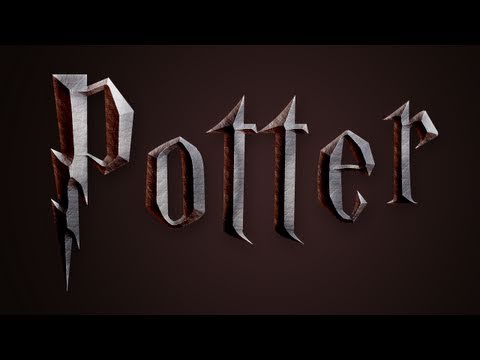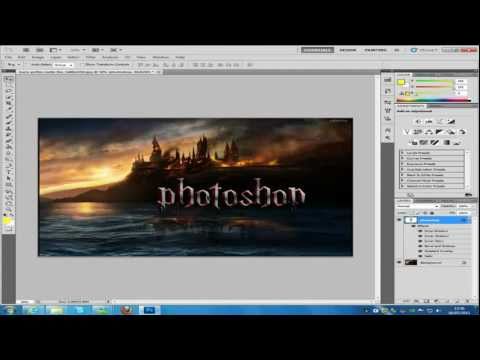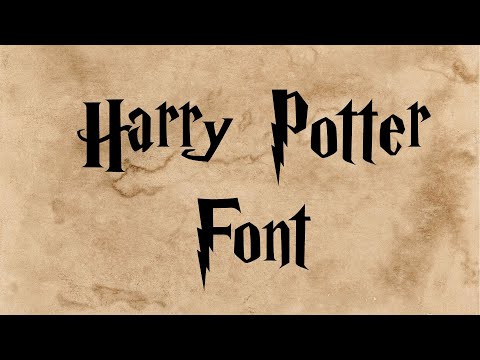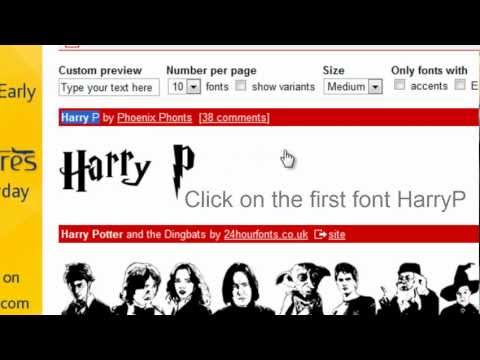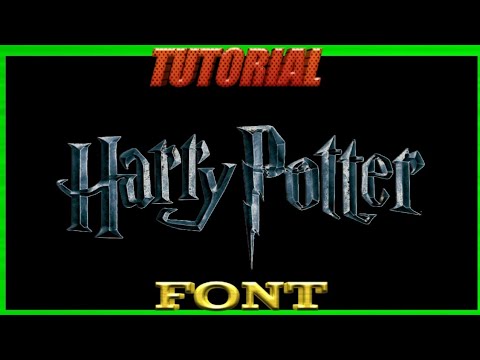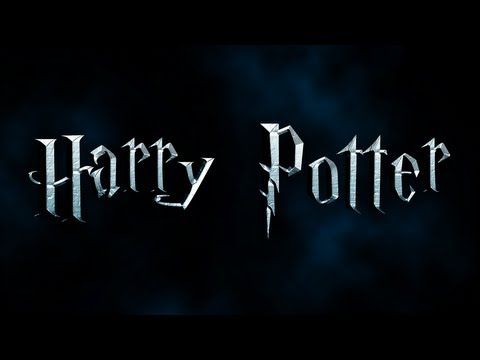
Download font Harry P Lumos font Lumos là kiểu chữ được lấy cảm hứng từ các tiêu đề chương trong các ấn bản của bộ sách Harry Potter tại Hoa Kỳ . Nó cũng bao gồm một số biểu tượng Harry Pot
Here is a collection of 6 different Harry Potter Fonts available for free downloading. Some of these have a magical bearing with stars overhead; some have a witchy appearance. Inversion Harry Potter F
Best Harry Potter Fonts in Microsoft Word. The best Harry Potter fonts are Chiller, Bradley Hand ITC, and Snap ITC. Each font offers something unique and different, but they all come with a great them
However, the Harry Potter font stands on its own, with jagged edges and uniquely-shaped letters that distinguish the font immediately from many others. These features, in addition to the lightning sha
The first and arguably most famous Harry Potter font is the font used on the covers of the books. This font is actually relatively old; it is called Cochin and was invented in 1912 as a print font, ba
Lumos Font. This font is quite similar to Times New Roman except for the elongated edges. In the Harry Potter universe, Lumos is one type of spell that will light up your want instantly. To get the be
Doωnload Font. 5. Parseltongue. Parseltongue is an original font also designed by Sarah McFalls. It was inspired by J.K. Rowling's Harry Potter books. The serpentine aspects of the font and the font's